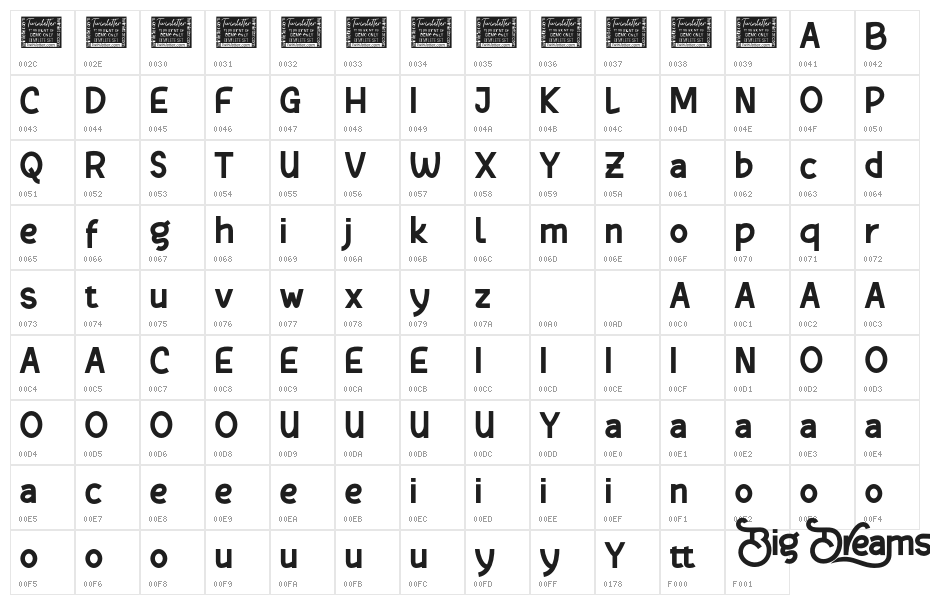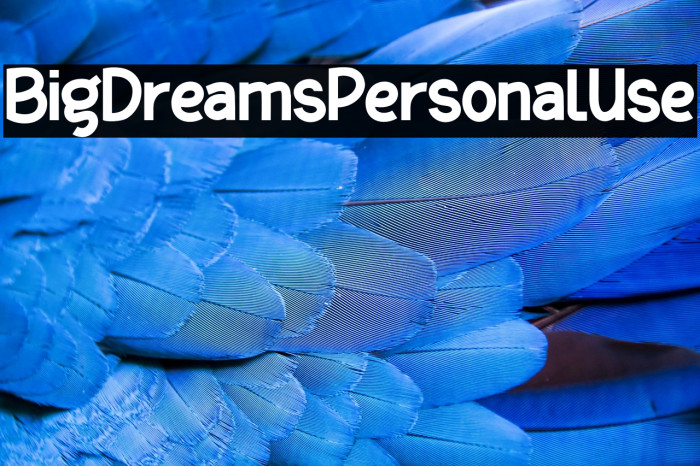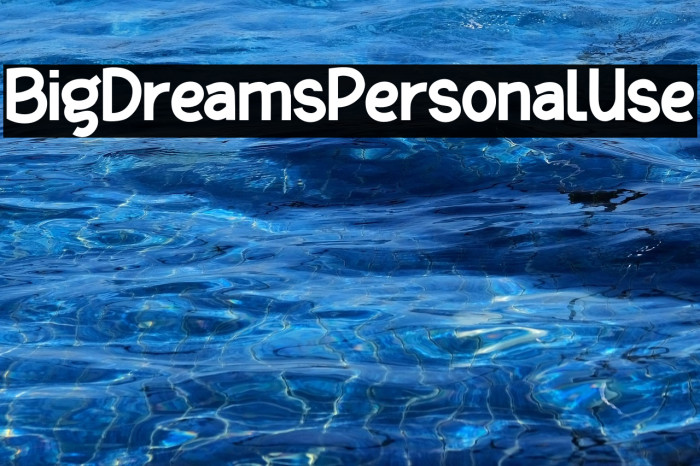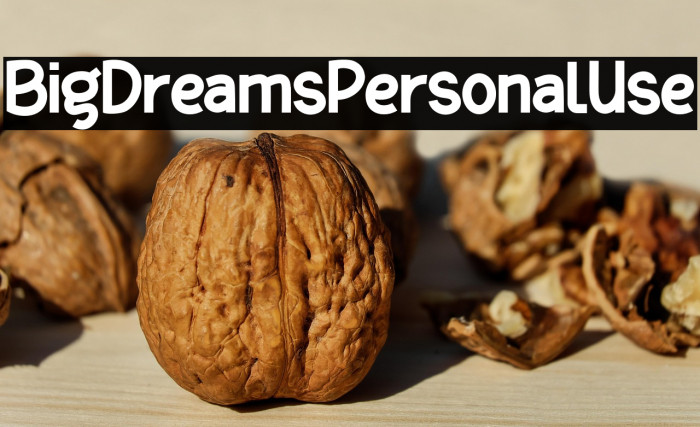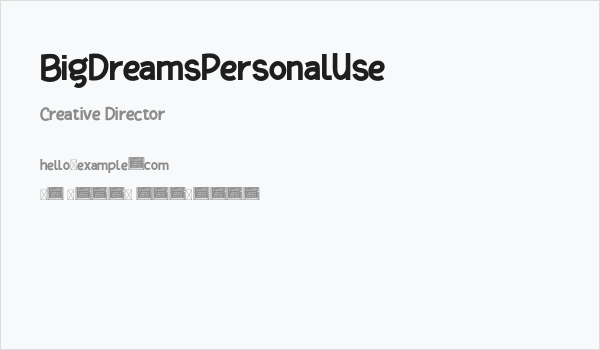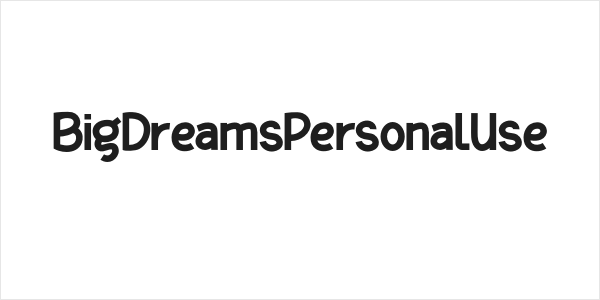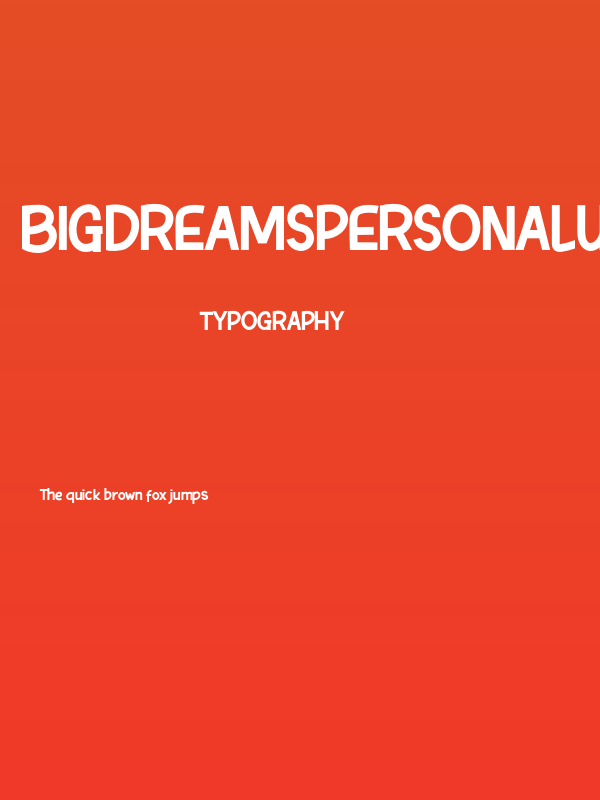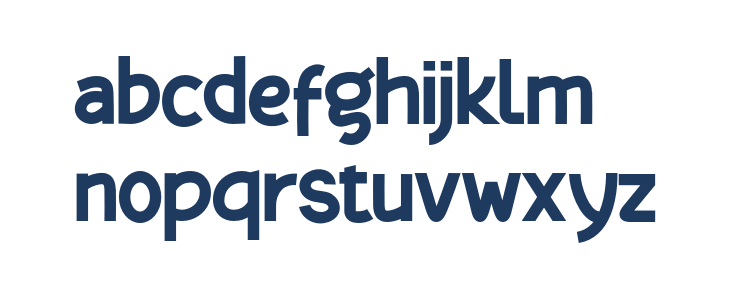
BigDreamsPersonalUse Font
BigDreamsPersonalUse Description
This font features bold, geometric letterforms with a modern aesthetic. The uppercase letters are strong and assertive, while the lowercase letters maintain a consistent weight and structure, providing a harmonious balance. The font's design is clean and straightforward, with slightly rounded edges that soften its overall appearance. The numerals and special characters follow the same design principles, ensuring uniformity across all characters. This font is versatile and can be used in various design contexts, offering a contemporary look that is both stylish and functional.
| Proposed Projects | Ideal for branding, headlines, posters, and digital media where a strong, modern presence is desired. |